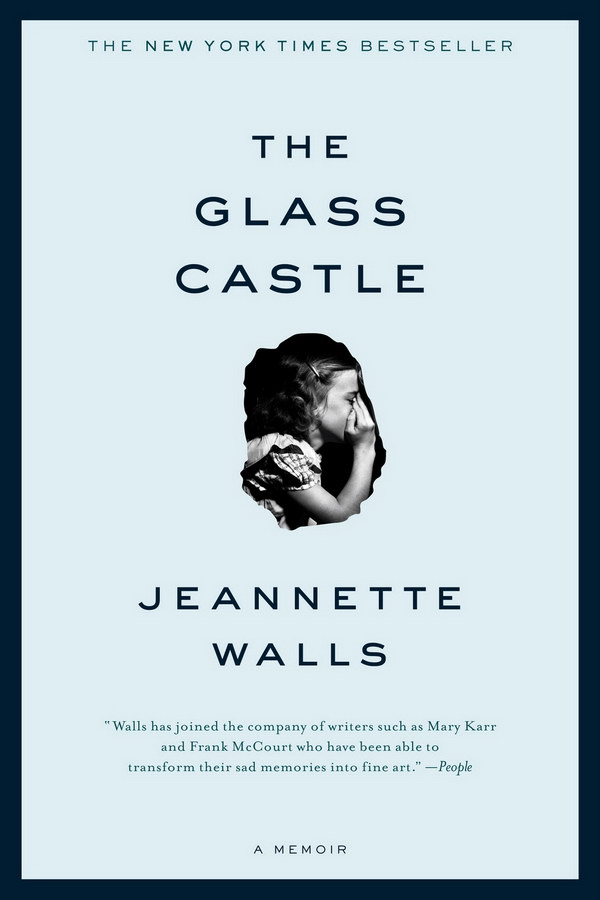
The Glass Castle Font
BiographicalThe Glass Castle is a memoir written by Jeannette Walls. It tells the story of Walls' unconventional childhood, growing up with highly intelligent but deeply troubled parents. Jeannette breaks free from the cycle of poverty and dysfunction to build a better life for herself. The book is a poignant and inspiring tale of survival and self-discovery.
Sackers Gothic Heavy is most likely used for the title on the book. Monotype Design Studio created Sackers Gothic in 1994 as a sans-serif font family. As an "engraver" font family, it has only capital letters in the style of ancient Roman inscriptions. More details about the typeface can be found here.